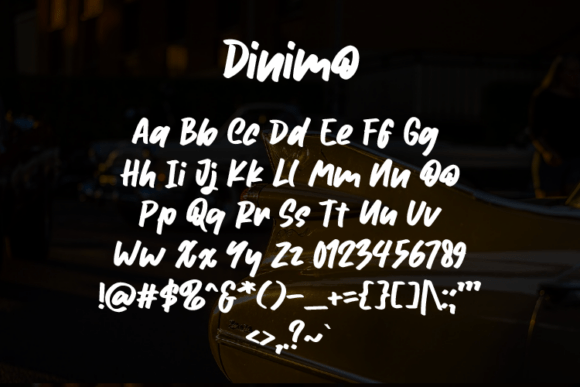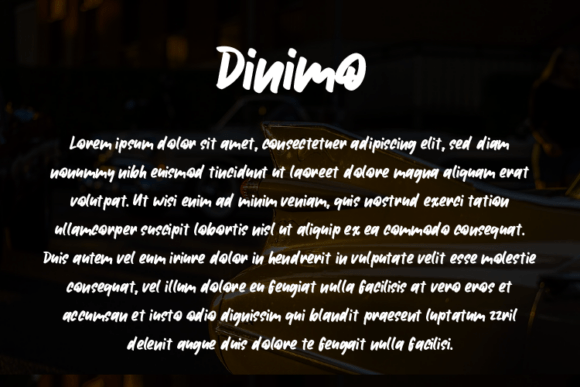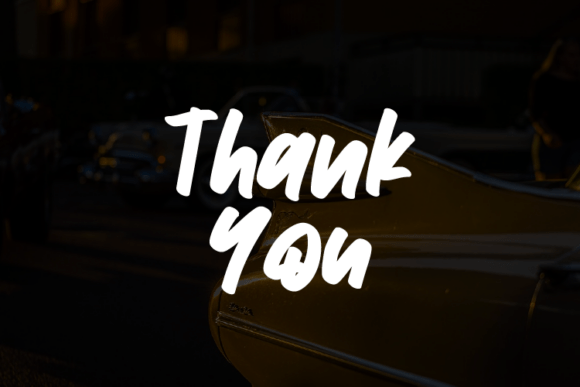
Unleash Your Creativity with Dinimo Font: The Ultimate Brush Script for High-Octane Designs
In the world of design, fonts play a crucial role in conveying the message and aesthetic of a brand. For designers and crafters looking to add a touch of high-octane energy to their work, Dinimo Font is the perfect choice. This professional brush script font is built for speed and style, making it ideal for a wide range of applications, from custom car workshops to high-energy apparel brands and bold social media content.
What Makes Dinimo Font Stand Out?
Dinimo Font is characterized by its thick, confident strokes and a natural, hand-painted flow. This unique combination gives it a gritty, authentic feel that perfectly captures the essence of urban street culture and vintage automotive aesthetics. The font’s bold and dynamic appearance makes it perfect for designs that require a high level of energy and movement.
Key Features of Dinimo Font
- Professional Brush Script: Dinimo Font is a carefully crafted brush script font that mimics the look and feel of hand-painted letters.
- Thick and Confident Strokes: The font features thick, confident strokes that give it a bold and dynamic appearance.
- Natural and Hand-Painted Flow: Dinimo Font has a natural, hand-painted flow that adds a touch of authenticity to any design.
- Urban Street Culture and Vintage Automotive Aesthetics: The font perfectly captures the essence of urban street culture and vintage automotive aesthetics, making it ideal for designs that require a gritty, authentic feel.
Use Cases for Dinimo Font
Dinimo Font is a versatile font that can be used in a wide range of applications, including:
- Custom Car Workshops: The font’s bold and dynamic appearance makes it perfect for custom car workshops, car tuning services, and automotive-related businesses.
- High-Energy Apparel Brands: Dinimo Font is ideal for high-energy apparel brands that require a font that can convey a sense of speed, style, and energy.
- Bold Social Media Content: The font’s gritty, authentic feel makes it perfect for creating bold and eye-catching social media content that requires a high level of energy and movement.
- Streetwear and Fashion: Dinimo Font can also be used in streetwear and fashion designs that require a bold and dynamic font.
Why Choose Dinimo Font?
There are many fonts available that can add a touch of energy and style to your designs. However, Dinimo Font stands out from the rest due to its unique combination of thick, confident strokes and a natural, hand-painted flow. Here are some reasons why you should choose Dinimo Font for your next design project:
- Unique and Authentic Look: Dinimo Font has a unique and authentic look that perfectly captures the essence of urban street culture and vintage automotive aesthetics.
- High-Octane Energy: The font’s bold and dynamic appearance makes it perfect for designs that require a high level of energy and movement.
- Versatility: Dinimo Font is a versatile font that can be used in a wide range of applications, from custom car workshops to high-energy apparel brands and bold social media content.
Tips for Using Dinimo Font Effectively
To get the most out of Dinimo Font, here are some tips for using it effectively:
- Use it Bold and Big: Dinimo Font is a bold and dynamic font, so use it bold and big to make a statement.
- Experiment with Colors: The font looks great in bold and bright colors, so experiment with different colors to find the one that works best for your design.
- Pair it with Other Fonts: Dinimo Font can be paired with other fonts to create a unique and interesting look.
Dinimo Font is a professional brush script font that is perfect for designers and crafters looking to add a touch of high-octane energy to their work. With its unique combination of thick, confident strokes and a natural, hand-painted flow, Dinimo Font perfectly captures the essence of urban street culture and vintage automotive aesthetics. Whether you’re designing for a custom car workshop, a high-energy apparel brand, or bold social media content, Dinimo Font is the perfect choice.